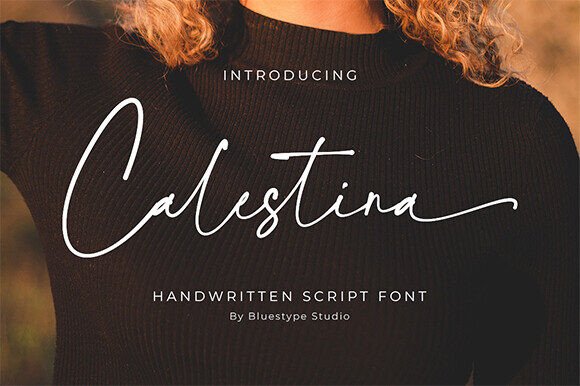
Introducing Calestina Font: The Epitome of Elegance and Sophistication
In the realm of typography, few fonts manage to capture the essence of natural penmanship while exuding elegance and sophistication. Calestina Font is one such remarkable typeface that seamlessly blends the warmth of handwritten script with the refinement of high-end design. Designed to make a lasting impression, Calestina is a graceful and stylish handwritten font that has been meticulously crafted to bring a touch of class and authenticity to various creative projects.
The Design Philosophy Behind Calestina Font
Calestina’s design is rooted in the principles of creating a harmonious and visually appealing typeface that resonates with readers. Its smooth curves and well-balanced strokes are a testament to the meticulous attention to detail that has gone into its creation. Each letterform has been carefully designed to flow effortlessly into the next, creating a sense of continuity and fluidity that is characteristic of natural penmanship.
The font’s creator aimed to craft a typeface that not only captures the warmth and charm of handwritten script but also brings a level of sophistication and elegance to the table. The result is a font that feels both approachable and refined, making it an excellent choice for a wide range of applications, from branding and advertising to packaging and editorial design.
Key Features of Calestina Font
- Smooth Curves and Balanced Strokes: Calestina’s design is characterized by smooth, flowing curves and well-balanced strokes that give it a natural and effortless feel.
- Warmth and Charm: The font exudes a sense of warmth and charm, making it perfect for designs that aim to connect with the audience on a personal level.
- Elegance and Sophistication: Calestina brings a touch of elegance and sophistication to any design, elevating it to a higher level of visual appeal.
- Versatility: The font is highly versatile and can be used across various creative projects, including branding, advertising, packaging, and editorial design.
- Legibility: Despite its elegant and cursive nature, Calestina maintains a high level of legibility, making it suitable for both headings and body text.
Applications of Calestina Font
Calestina’s unique blend of elegance, warmth, and versatility makes it an excellent choice for a wide range of applications. Here are some of the areas where Calestina truly shines:
- Branding and Logo Design: Use Calestina to create a memorable brand identity that stands out for its elegance and sophistication.
- Advertising and Marketing Materials: The font’s charm and warmth make it perfect for use in advertising and marketing materials, where connecting with the audience is key.
- Packaging Design: Calestina can add a touch of luxury and sophistication to product packaging, making it more appealing to potential customers.
- Editorial Design: The font is well-suited for use in editorial design, including magazines, newspapers, and books, where its readability and elegance can enhance the reader’s experience.
- Digital Media: Calestina can also be used in digital media, such as websites, blogs, and social media graphics, to add a level of sophistication and professionalism.
Why Choose Calestina Font?
In a world where typography plays a crucial role in communication and brand identity, choosing the right font can make all the difference. Here are some reasons why Calestina stands out as an excellent choice:
- Unique and Distinctive: Calestina offers a unique and distinctive look that can help any design stand out from the crowd.
- Emotional Connection: The font’s warmth and charm can help create an emotional connection with the audience, which is invaluable in building brand loyalty.
- High Versatility: Calestina’s versatility means it can be used across various platforms and applications, making it a practical choice for designers.
- Elegance and Sophistication: The font brings a level of elegance and sophistication that can elevate any design to a higher level of visual appeal.
Calestina Font is a remarkable typeface that captures the essence of natural penmanship with a touch of elegance and sophistication. Its smooth curves, well-balanced strokes, and warm charm make it an excellent choice for designers looking to add a level of refinement and authenticity to their creative projects. Whether you’re working on branding, advertising, packaging, or editorial design, Calestina is a versatile and stylish font that can help you achieve your design goals. With its unique blend of elegance, warmth, and versatility, Calestina is poised to make a lasting impression in the world of typography.